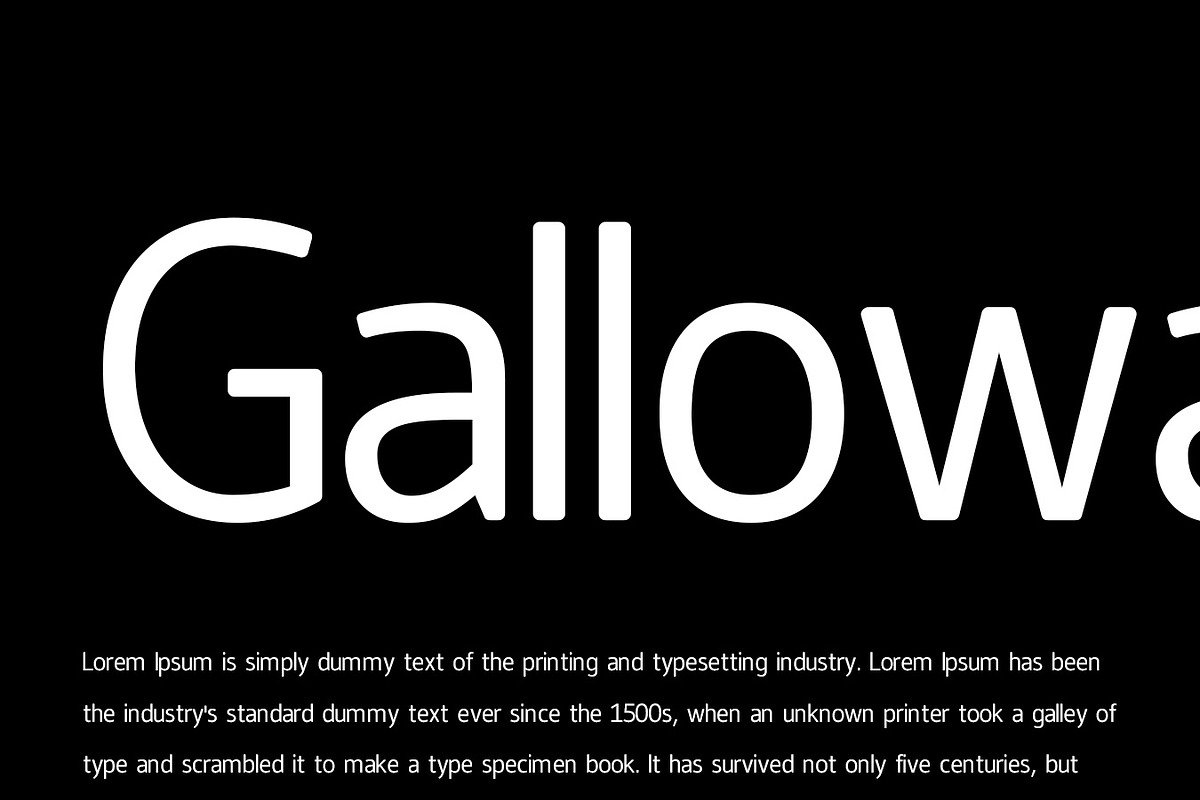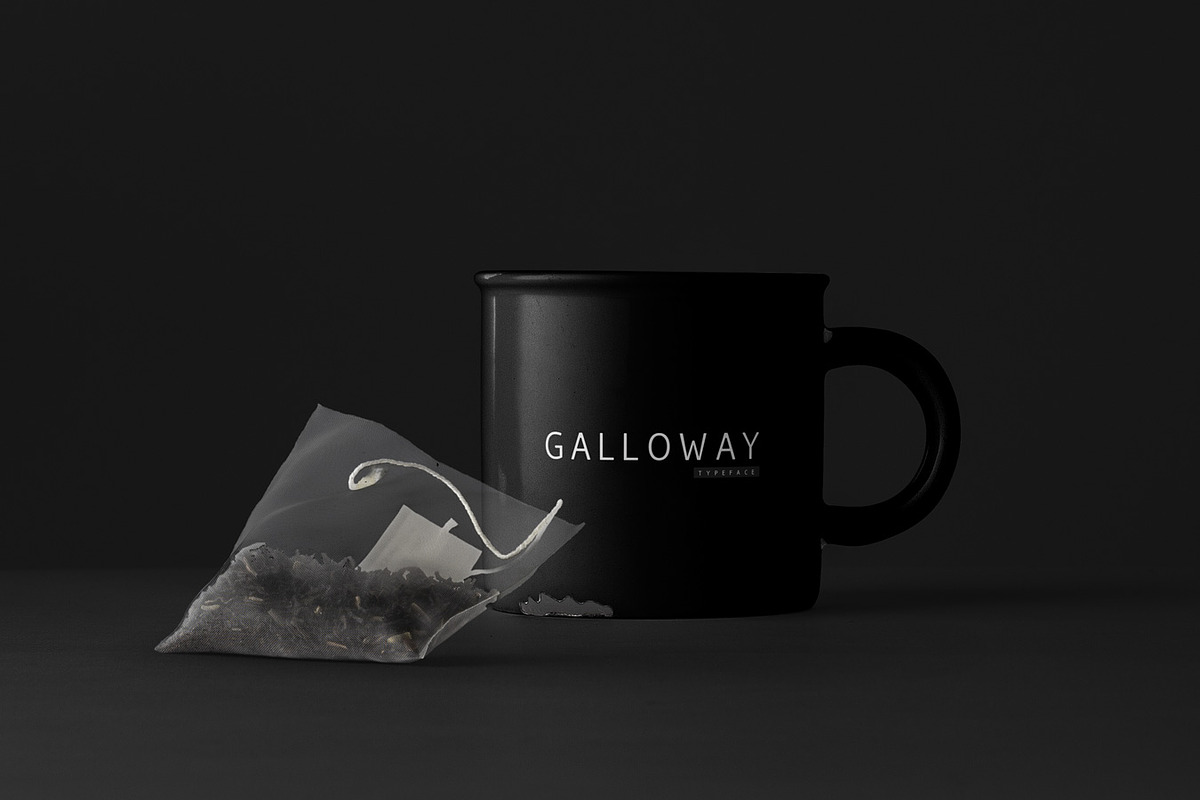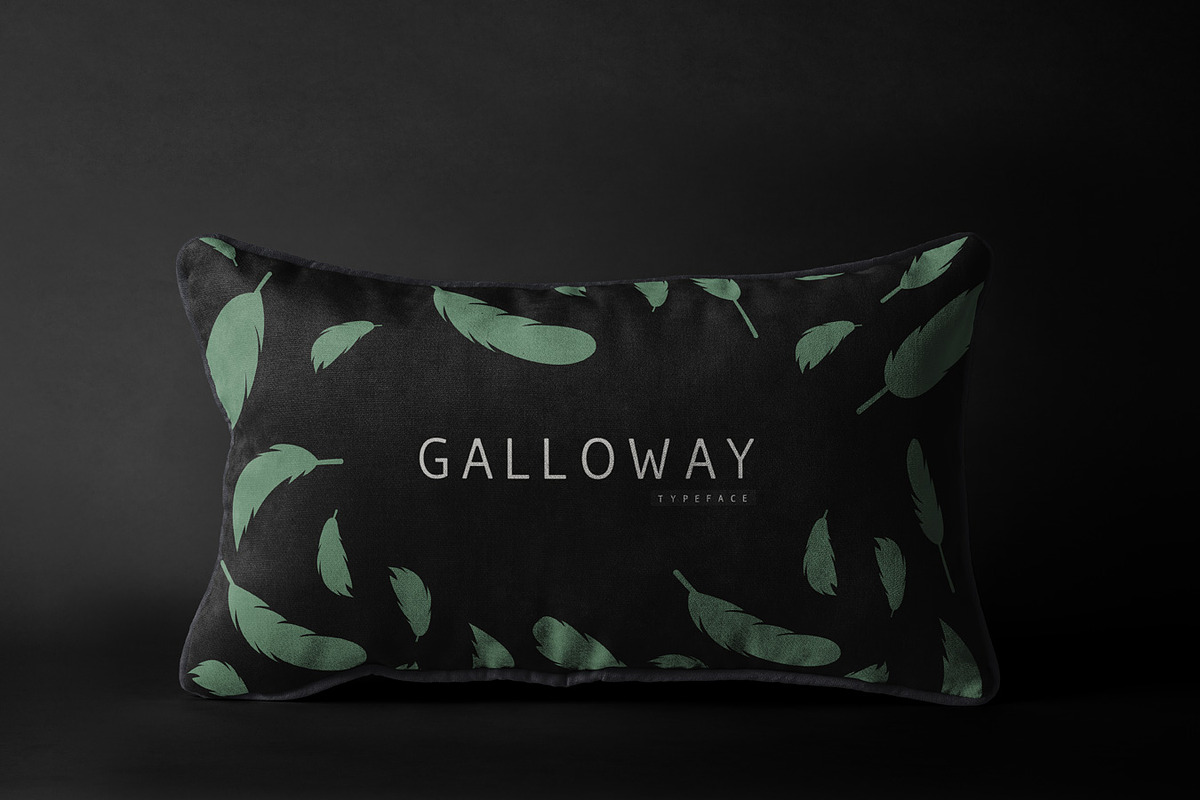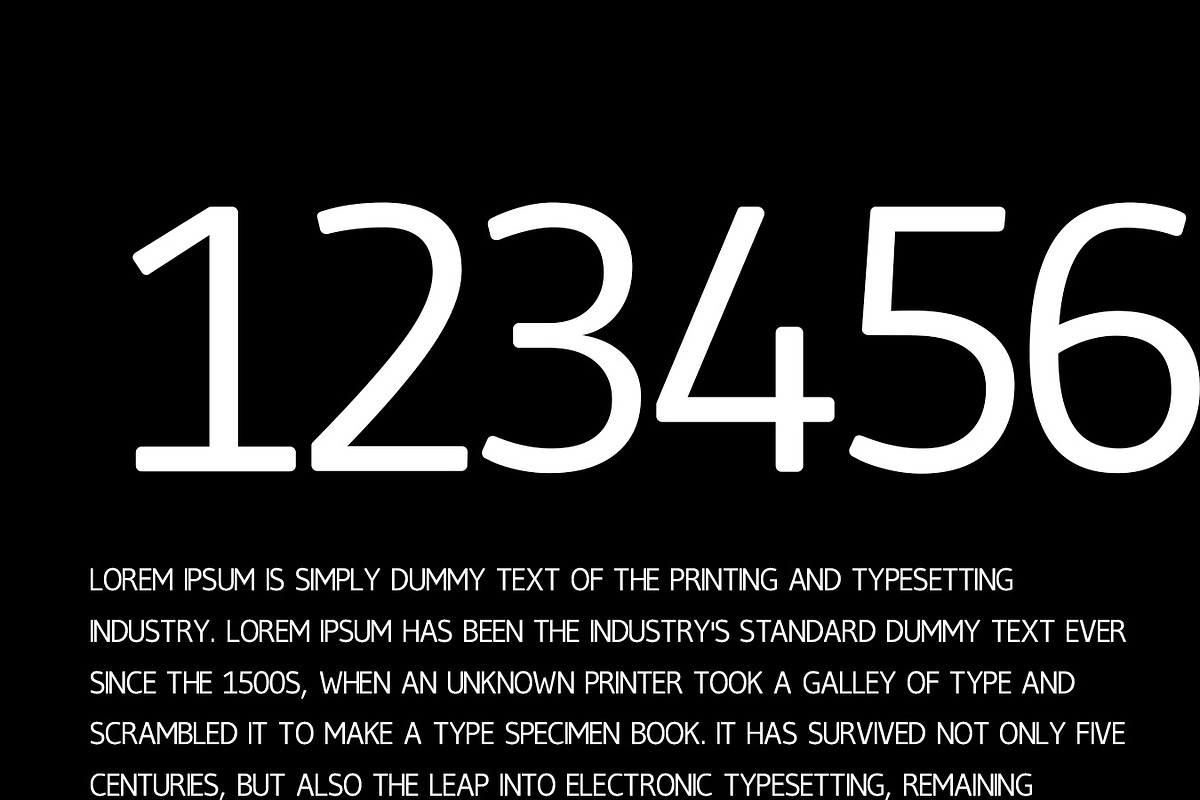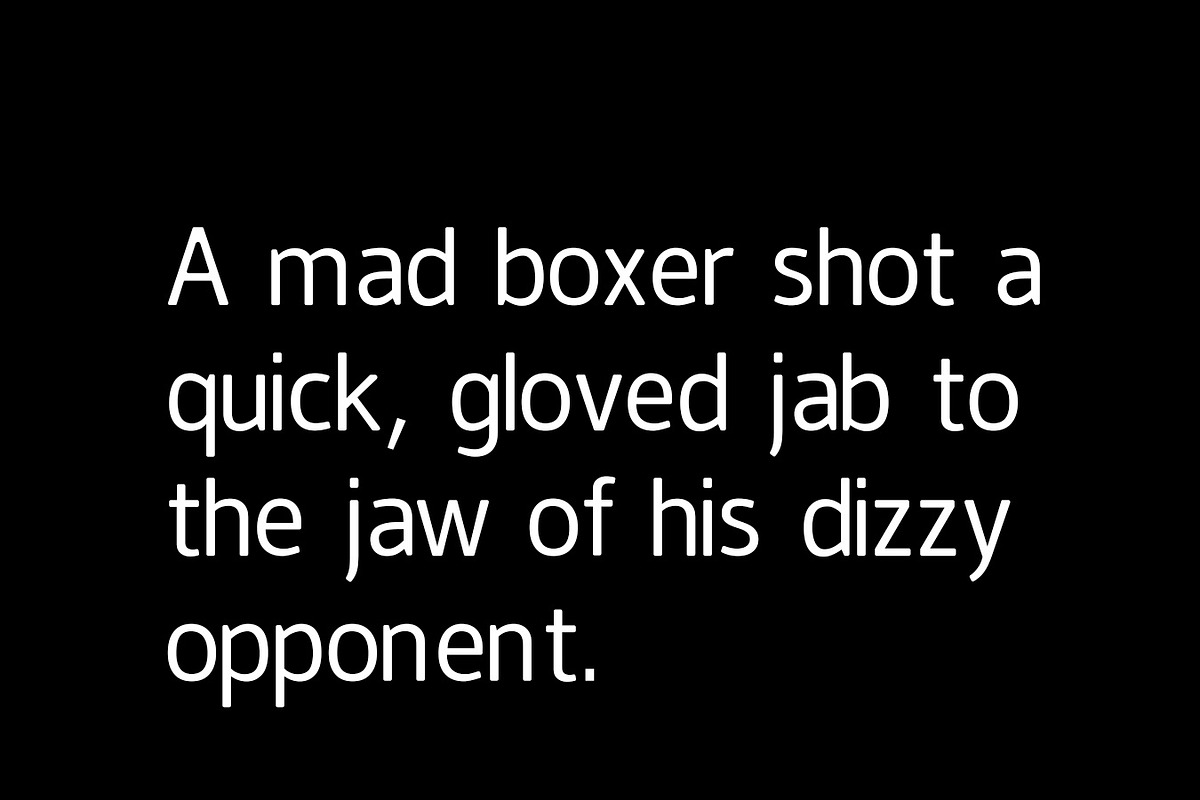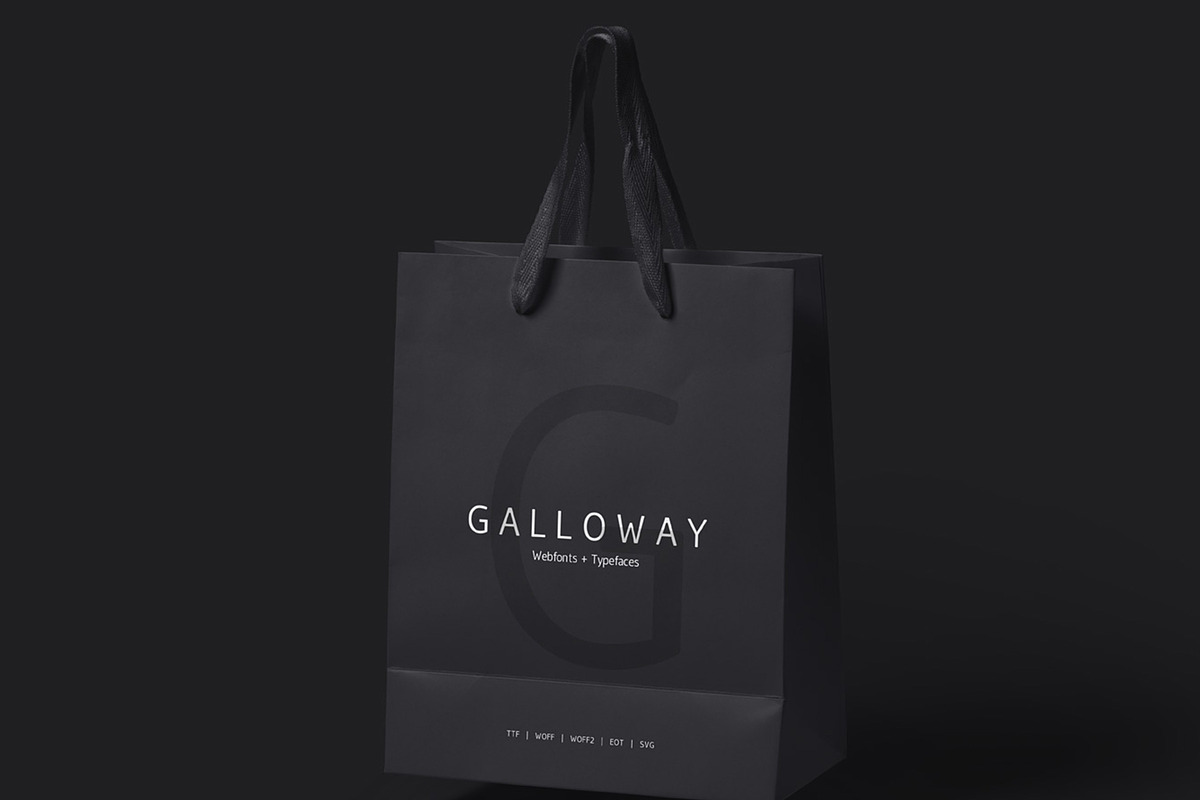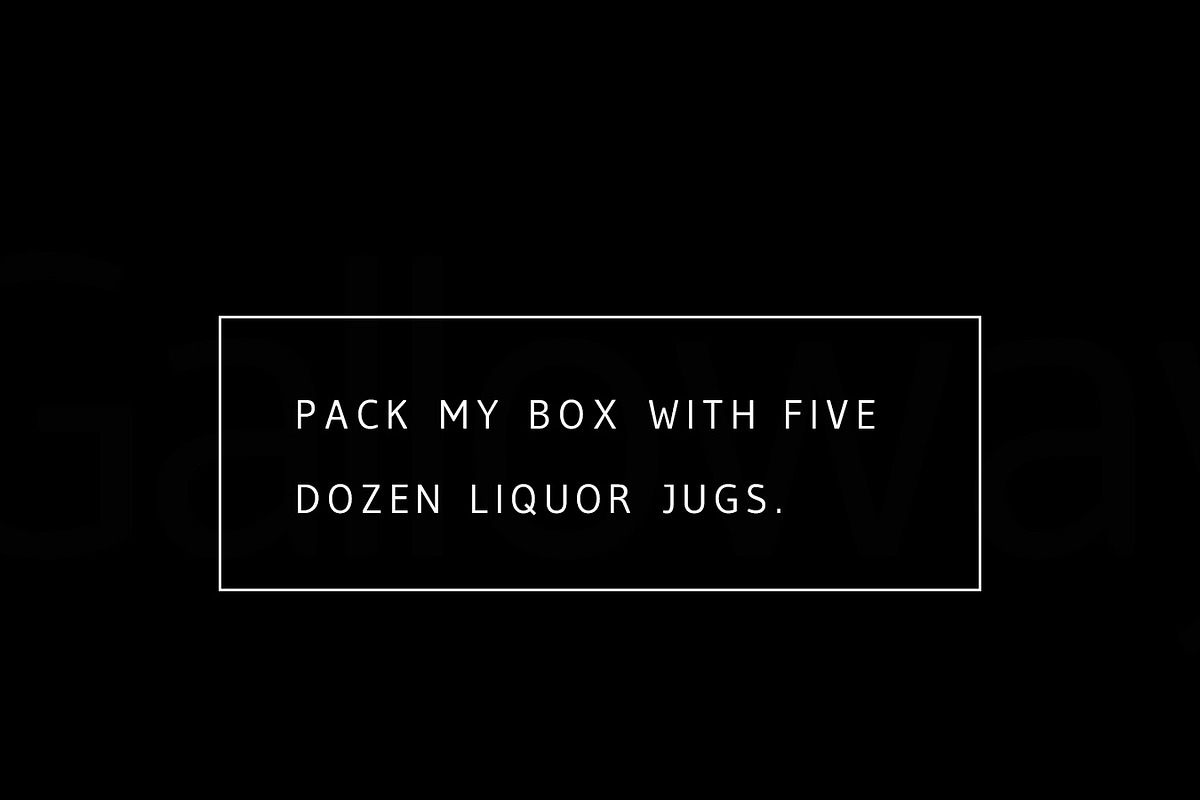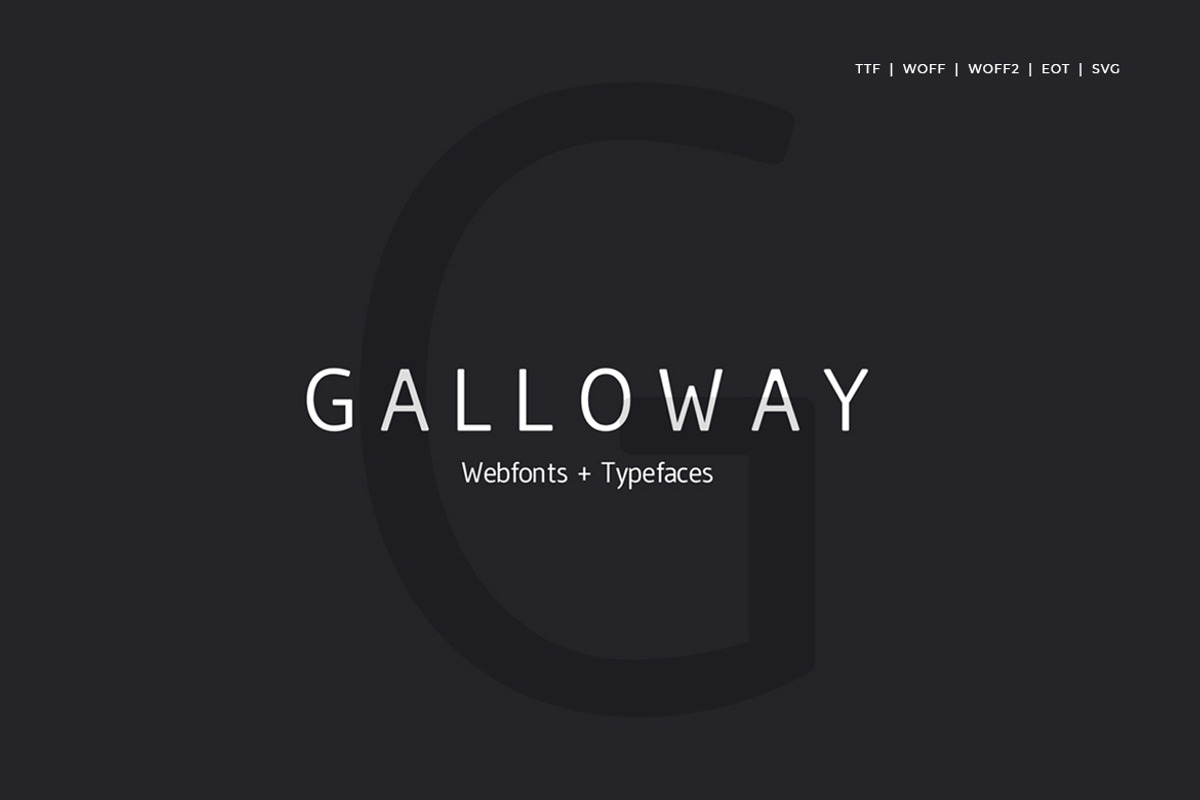
Galloway - Modern Typeface V2.0
Galloway Modern Typeface
Galloway is a modern and Minimal Sans Serif typeface, Galloway Sans can keep the minimalism at its level best and is a Perfect choice for Creative and Classic Typography Designs. The pack includes OTF, TTF and Web Fonts (all EOT, SVG, TTF, WOFF included).
Font Designed and Crafted by Melwin Peter, From Webhance Studio.
- Galloway Regular
Galloway - Modern Typeface V2.0 by Webhance Studio fits naturally into Branding, posters, packaging, typography.